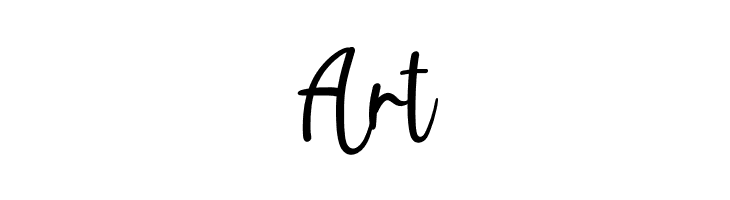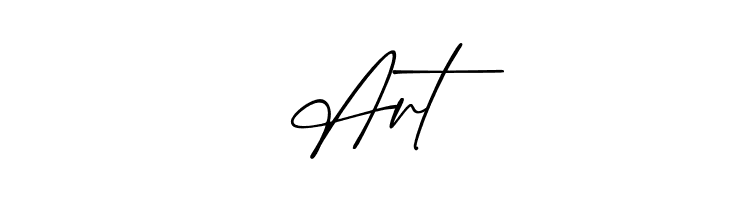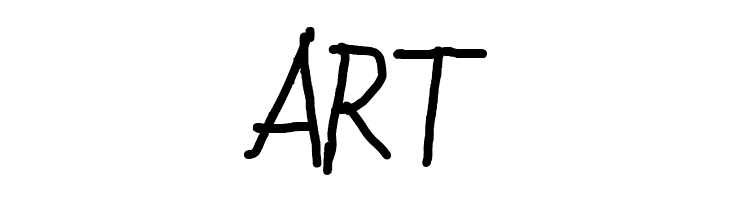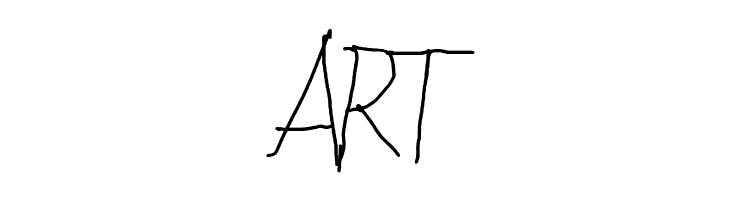
( Fonts by MJType )
Casual, rounded handwritten style with playful, informal character shapes.
( Fonts by The Branded Quotes )
A rough, sketchy handwritten font with tall, narrow characters and expressive strokes.
( Fonts by The Branded Quotes )
Expressive handwritten font with tall, irregular forms and sketchy strokes.
( Fonts by The Branded Quotes )
Light, sketchy handwritten font with tall, expressive forms.
( Fonts by The Branded Quotes )
Sketchy, hand-drawn uppercase font with expressive, irregular strokes.
( Fonts by The Branded Quotes )
Bold, hand-drawn uppercase font with an expressive, casual style.
( Fonts by The Branded Quotes )
Expressive, energetic handwritten style with tall, narrow characters.
( Fonts by Dm Letter Studio )
Bold, playful handwritten font with rounded, organic shapes.
( Fonts by Pen Culture )
Handwritten cursive script with a signature-like flow.
( Fonts by Andika )
Casual handwritten script with playful, flowing lines.
( Fonts by Staircase Studio )
Energetic, bold script with brush-like strokes and a dynamic handwritten feel.
( Fonts by Staircase Studio )
Energetic, slanted script with bold, sweeping strokes.
( Fonts by Behind the Ink )
A whimsical handwritten script with tall, narrow letters and a casual style.
( Fonts by Scratchones )
Modern, whimsical script with playful contrast and handwritten style.
( Fonts by Planetz Studio )
A thin, tall, handwritten script with a casual, organic appearance.
( Fonts by Perspectype Studio )
A lively, handwritten script with tall, narrow characters and a casual appearance.
( Fonts by Typebae Foundry )
Elegant, light script font with a handwritten signature style.
( Fonts by Scratchones )
Casual handwritten script with brush-like strokes.
( Fonts by Graphix Line Studio )
Modern handwritten script with smooth, playful curves.
( Fonts by Timur Type )
Handwritten, playful sans-serif with tall, narrow letters.
( Fonts by Timur Type )
Elegant, airy handwritten script with tall, narrow forms.
( Fonts by Pustudio )
Expressive handwritten script with a signature style.